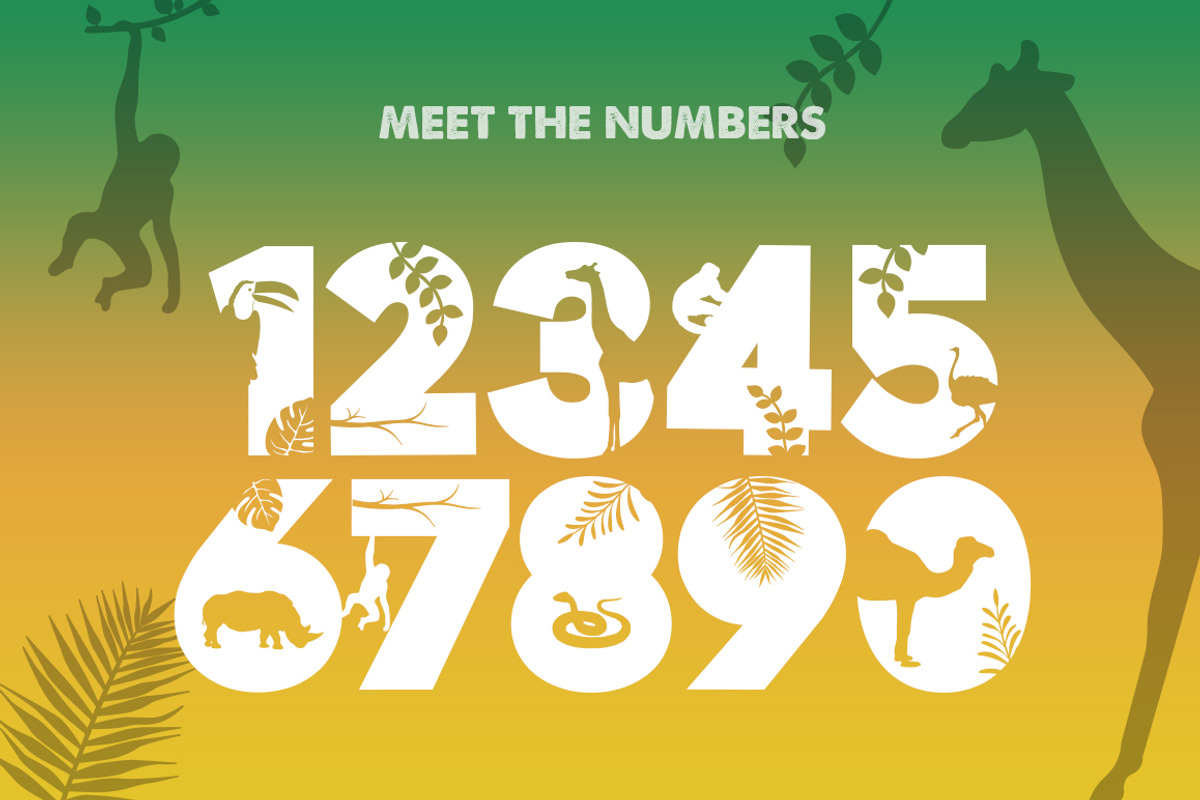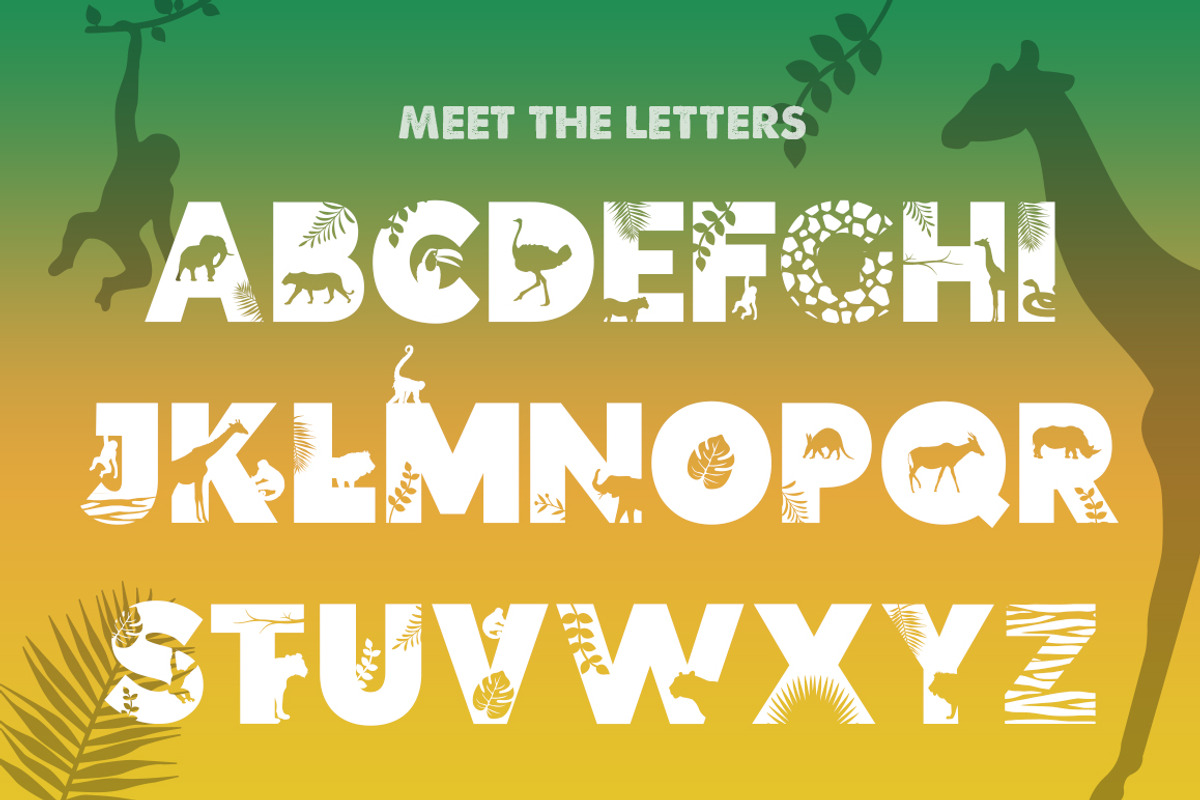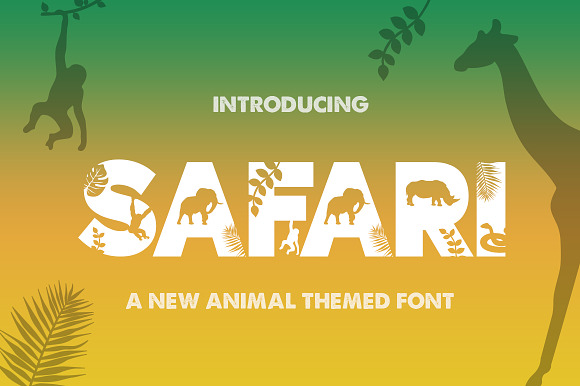
Safari Silhouette Font
Why Safari Silhouette Font is worth a look
Safari Silhouette Font by Salt & Pepper Designs fits naturally into Branding, posters, packaging, typography.